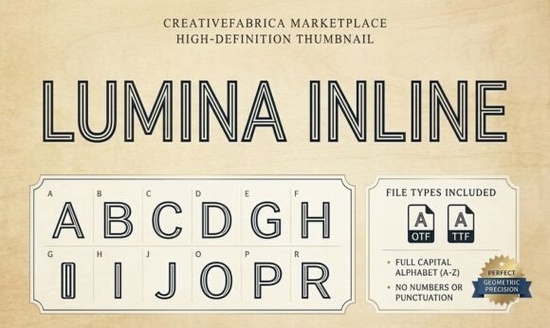
If you're looking for a display font that blends modern minimalism with bold visual impact, Lumina Inline Font is worth a closer look. Designed with clean geometric lines and a distinctive double-line structure, it brings a refined yet eye-catching presence to everything from posters to apparel. Whether you're crafting custom SVG files for your Cricut machine or designing a sleek logo for a small business, Lumina Inline offers both style and practicality.
What makes Lumina Inline stand out among display fonts?
Unlike solid sans-serif fonts, Lumina Inline uses an outline or inline construction that creates negative space within each letterform. This gives your text depth and dimension without adding visual clutter. The result? A futuristic aesthetic that works especially well in neon-inspired graphics, tech branding, or sporty designs where clarity and edge go hand in hand.
Because it’s built on a minimalist foundation, it pairs effortlessly with other typefaces or stands strong on its own. And since the strokes are consistent and open, it cuts cleanly on vinyl cutters and laser engravers making it a favorite among crafters who work with layered materials or line-art projects.
Who should use this font?
Print-on-demand sellers will appreciate how Lumina Inline grabs attention on t-shirts, mugs, and phone cases without overwhelming the product. Small business owners can use it for modern logos, social media headers, or packaging that needs to feel current but not trendy. Hobbyists and DIY crafters benefit from its compatibility with cutting machines like Cricut and Silhouette just import the SVG or OTF file, and you’re ready to create crisp, professional-looking monograms or wall art.
If you enjoy experimenting with layered typography or want to add subtle complexity to headlines, this font delivers. It’s also surprisingly legible at larger sizes, which is essential for posters, banners, or storefront signage.
How does it compare to other display fonts?
While many display fonts lean into retro vibes or heavy ornamentation, Lumina Inline stays firmly in the contemporary lane. For contrast, consider fonts like Block Retro, which channels 1970s signage, or Oscar, a bold condensed option with vintage flair. If you prefer something softer and script-like, Eleanor offers elegant curves, while Dango brings playful rounded forms to the table. And for those who love hand-lettered charm, Letter Crafts provides a more organic, artisanal feel.
Tips for getting the most out of Lumina Inline
- Use ample spacing: Because of its double-line design, tight kerning can make letters appear crowded. Slightly increase letter spacing for better readability.
- Pair with a simple sans-serif: Combine it with a neutral body font like Helvetica, Inter, or Montserrat to keep your layout balanced.
- Experiment with color fills: The open centers allow you to add contrasting colors, gradients, or even patterns inside the letters for dynamic effects.
- Avoid small sizes: This is a display font best used at 24pt or larger. It’s not meant for paragraphs or fine print.
- Test before cutting: If using with a Cricut or Silhouette, do a test cut on scrap material first to ensure the thin inner lines don’t tear.
Whether you’re refreshing your brand identity or creating a custom gift for a friend, Lumina Inline adds a touch of modern sophistication without sacrificing versatility. Its clean geometry and open structure make it adaptable across digital and physical mediums exactly what today’s multi-platform creators need.